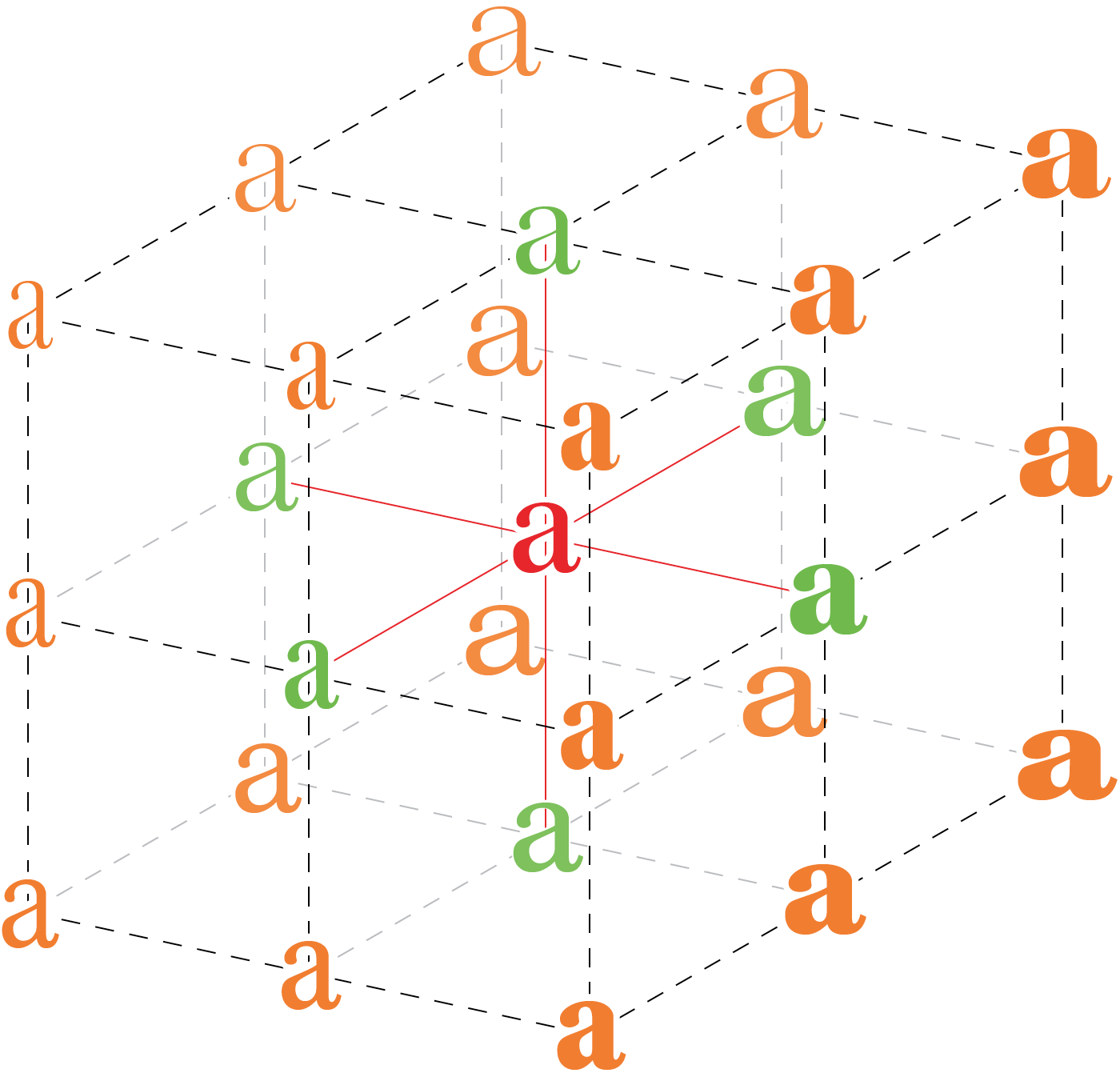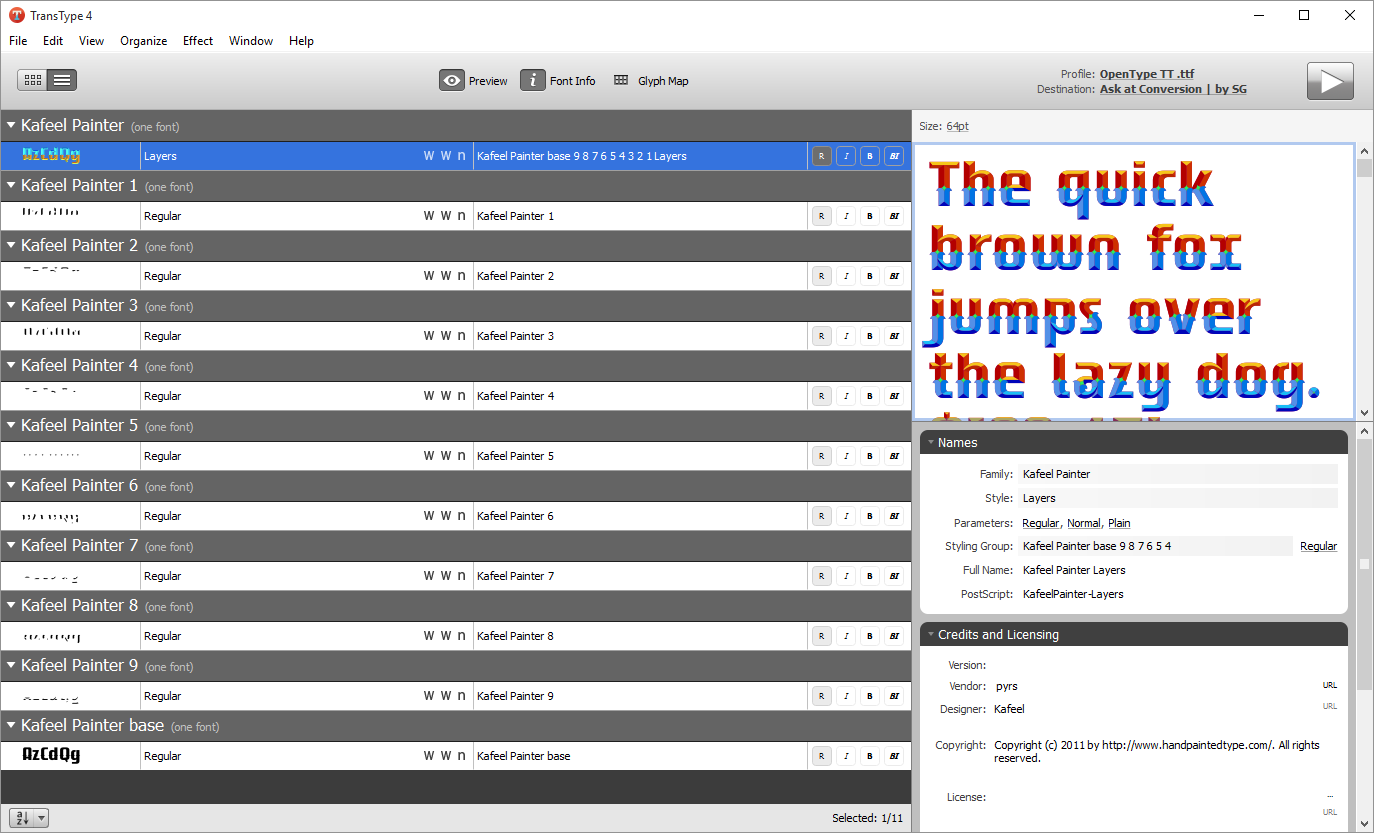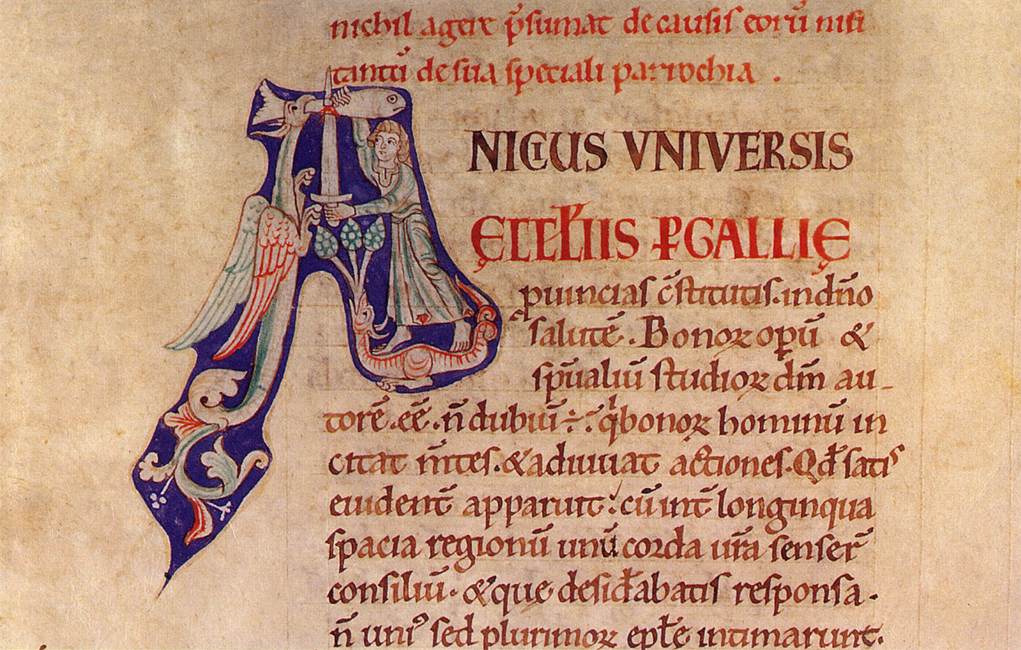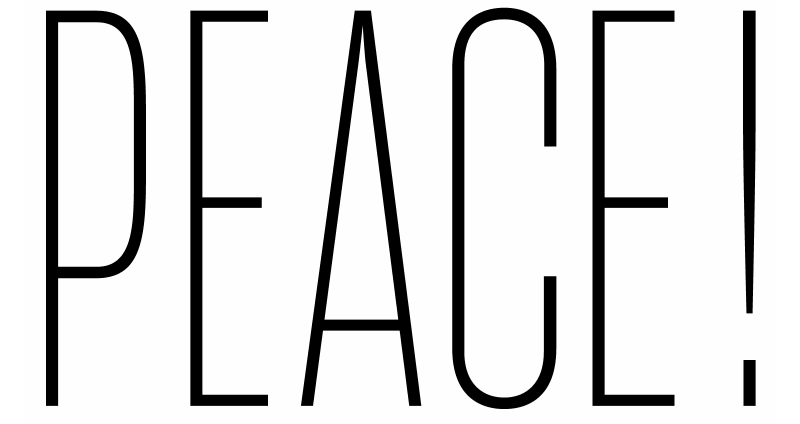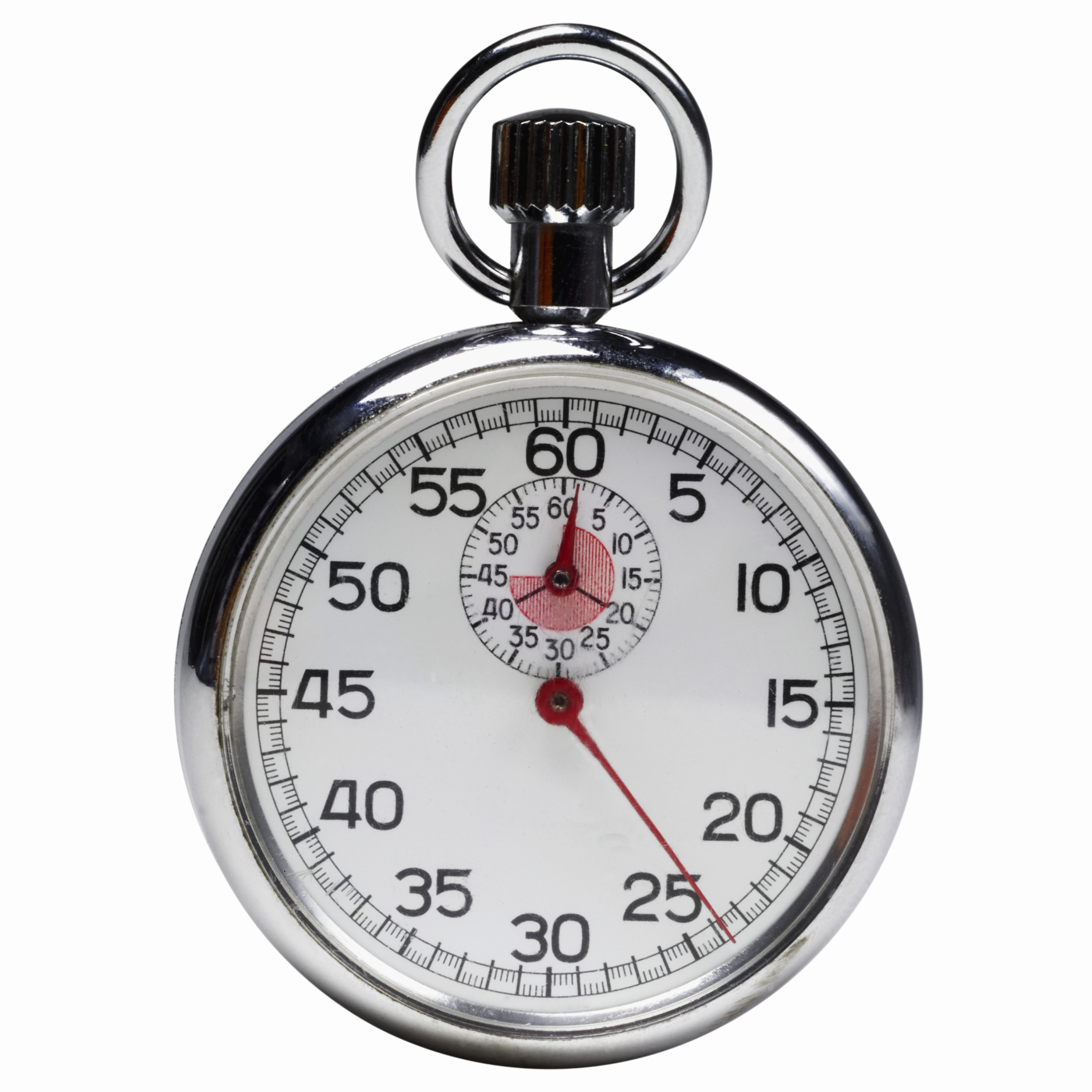
The State of WebFonts
WebFonts
Topics for today
Basics
Character
a codepoint, with properties
Glyph
visual representation of character(s)
fi
character(s), glyph(s)
é
character(s), glyph(s), font(s)
Myriad Pro <— Font family
• <— Faces
• Light
• Roman
• Bold
• Black
• Italic
• Condensed
Baskerville<— Font family
• <— Faces
• Roman
• Semibold
• Bold
• Italic
Descriptors
describe individual font faces
Properties
requests for styling
Font stacks
First font with glyphs for a given character is used
Problem: avoiding bad Latin glyphs in Japanese fonts
Both fonts can’t be first!
unicode-range
Descriptor for allowed range of Unicode characters
I'm really sorry about the unicode-range syntax. :(
What was I thinking?!
This & That
no need for extra elements
U+26
Use just the ampersand
This & That
OpenType Features & CSS
CAPITALE FULGURANT
et modeste avec ça
INCROYABLE astrale
OpenType features
Optional stylistic controls
Control with CSS
Fonts vary in features provided
font-variant
Preferred, but poor support
font-feature-settings
Cryptic, low-level, widespread support
Performance
Subset all the things!
Subsetting
WOFF 1 compression
WOFF2: hmtx
WOFF2: glyf
Seven streams for better compression
WOFF2: loca
discard, recalculate
WOFF 2 compression
WOFF 2.0
with TrueType glyphs
68%
25% better than WOFF 1.0
WOFF 2.0
with CFF glyphs
63.5%
15.5% better than WOFF 1.0
WOFF2 & mobile
The future
The Font Display Timeline
the font face’s font download timer
• font block period (invisible fallback)
• font swap period (loaded fallback)
• font failure period (font stack)
From illuminated manuscripts…
illuminated manuscript
…to emoji
Painter Kafeel
TransType Editor
screenshot for demo
COLR + CPAL
COLR holds stack of TrueType outlines
CPAL holds color palette(s)
What's love got to do
Where did the styling go?
CSS4 font-palette
select from provided palettes
CSS4 @font-palette-values
override baked-in palettes
SVG (+ CPAL)
SVG holds SVG graphics
CPAL holds color palette(s)
CSS 4 @font-palette-values to alter palette
got to do with it
Painter Kaffeel
CSS4 font-synthesis
small-caps (disable fake small caps)
emoji, math, fangsong
New generic font families
Reenie Beanie
Informal handwriting script, by James Grieshaber. Used here for comments and other annotations.
EmojiOne
SVG-in-OT emoji font by Brad Erickson. CC-BY-4.0 Includes skin colour modifiers, circled letters, flags.
Multicolore
SVG-in-OT conversion by Xerographer fonts of Illustrator concept font by Ivan Filipov. CC-BY-SA 4.0.